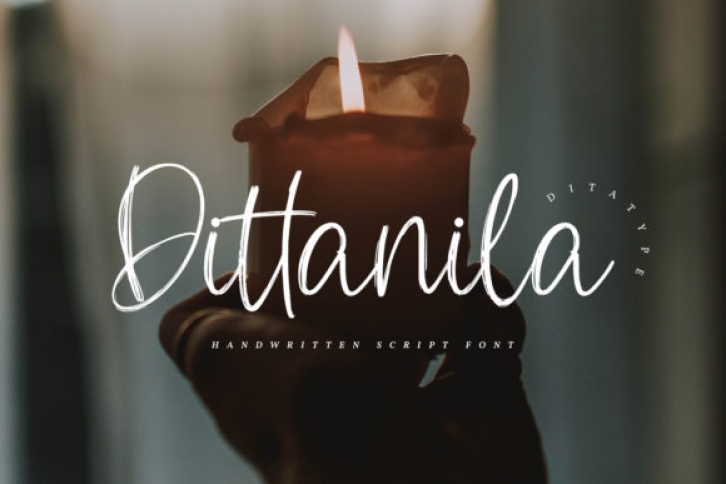
Dittanila is a beautiful handwritten font. Its unique style will make your design project modern and attractive. This font is perfect for any professional project branding, logotype, quotes and more.